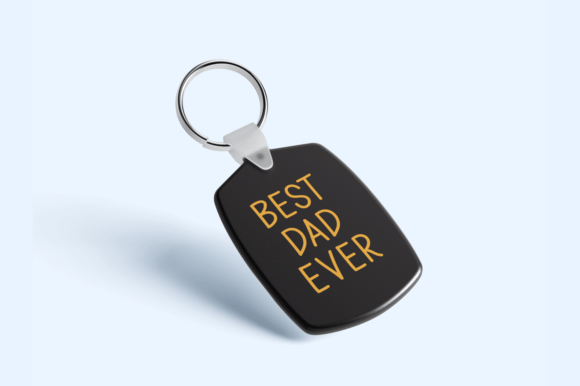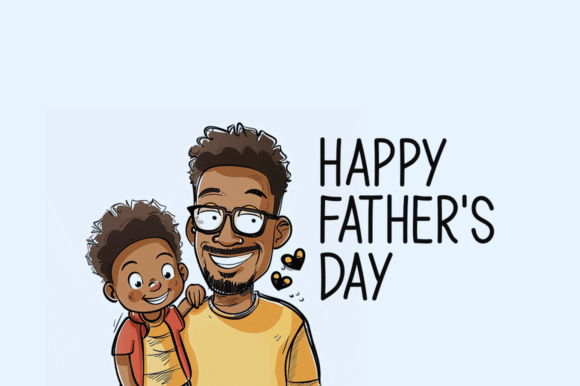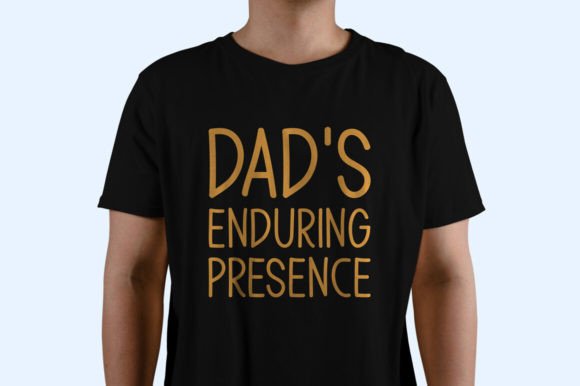
Introduction to Pretty Daddy Font
Remember that moment when you stumbled upon the perfect font, and your design just came alive? It’s like finding the missing piece to a puzzle, and suddenly, your creative project takes on a whole new level of sophistication. For designers, the search for that perfect font can be a tedious one, but what if I told you there’s a delightful handwritten font that’s sure to elevate your designs – meet Pretty Daddy Font!
This charming font is a design resource like no other, offering high-quality typography that’s perfect for a wide range of creative projects. Whether you’re creating a flyer, a poster, or even a music cover, Pretty Daddy Font effortlessly adds a touch of personality to every design. And the best part? It’s available for free download, making it an accessible addition to your design arsenal.
Key Features of Pretty Daddy Font
- Designed to provide a unique, stylish aesthetic for various applications
Honest Review: Pretty Daddy Font
I recently stumbled upon the Pretty Daddy Font, a high-quality design resource that has caught my attention. As a designer, I’m always on the lookout for unique and creative fonts that can elevate my projects.
- Unique and playful style that adds a touch of sophistication to any design
- High-quality design that looks great in print and digital formats
- Wide range of weights and styles to choose from, making it versatile for different design needs
However, I do have a few limitations to note:
- Not suitable for projects that require a more serious or formal tone
- May not be as readable in small font sizes or on low-resolution displays
Overall, I’m impressed with the Pretty Daddy Font. It’s a great addition to any design resource library, and I’d highly recommend it for creative projects that require a touch of elegance and whimsy.
Experiment with different font sizes and styles to create a visually appealing design. You can also pair the Pretty Daddy Font with other fonts to create a unique and creative look.
The Pretty Daddy Font is ideal for creating graphics, logos, and branding materials. It’s also perfect for creating social media graphics, flyers, and posters. Its high-quality design and transparent background make it a popular choice among designers and creatives.